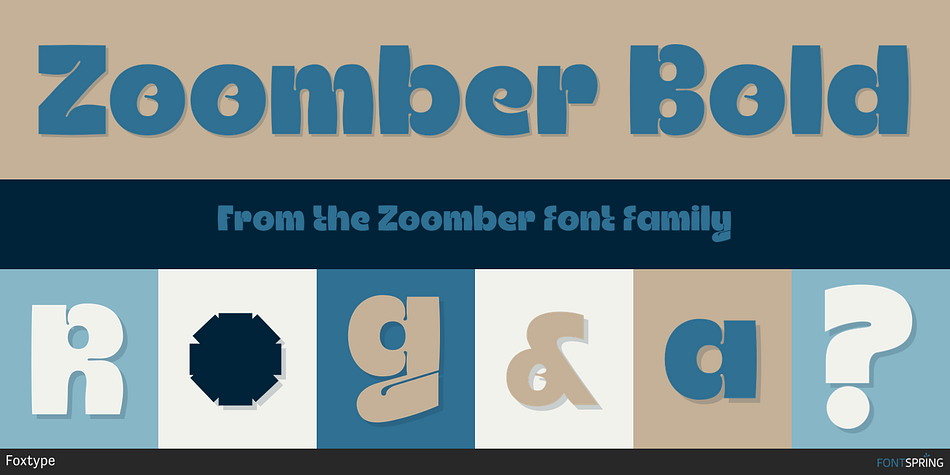
Zoomber Bold
Zoomber is a sans serif font family published by Foxtype.
Introducing Zoomber Display new generation Decorative Typeface. Zoomber Typeface created with the vision of to attract the audience to your brand . The finest details of this typeface are methodically and mathematically created. Zoomber is created with all the tasks of a corporate font and also for the usage in a variety of projects, including branding, logos, titles, headlines, servers, posters, screens, display, digital ads, and everything else.